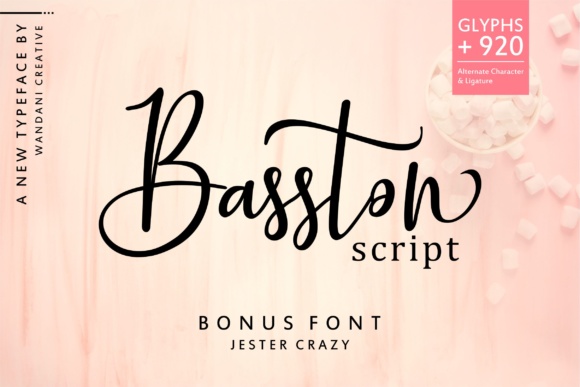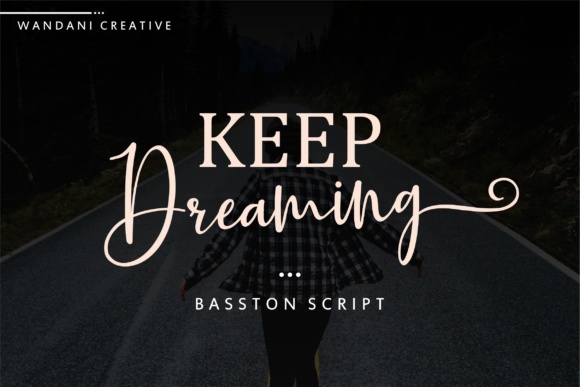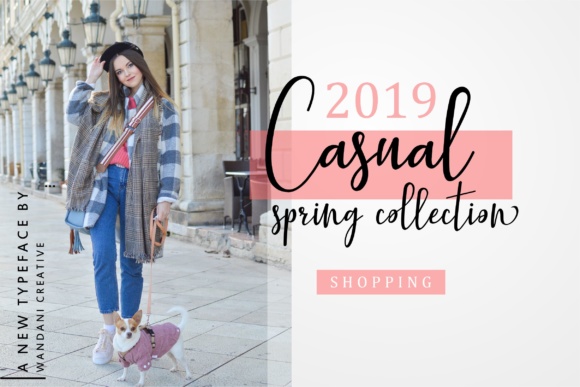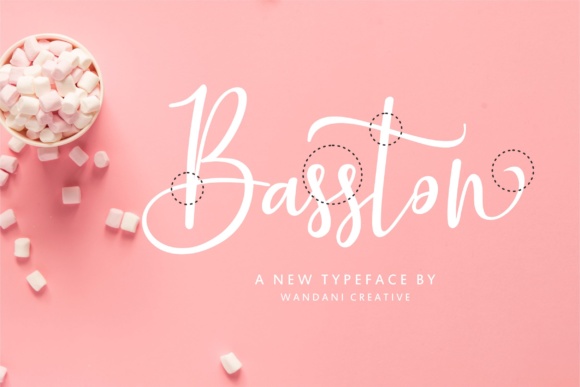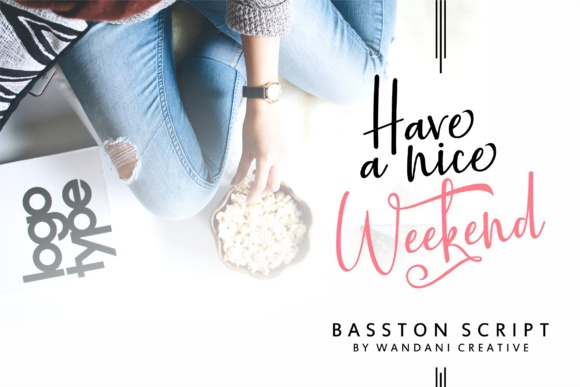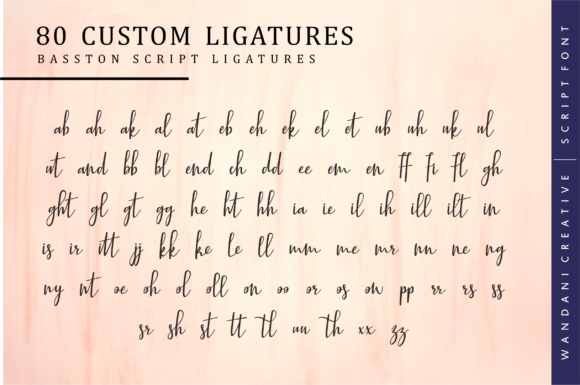
Basston Script Font
About Basston Script Font
The Basston is a beautiful script font. It has an elegant and charming look and design. This font comes with lots of alternate characters and ligatures, so you can create the most stellar looking calligraphy designs easily. It is perfect for branding, packaging design,etc